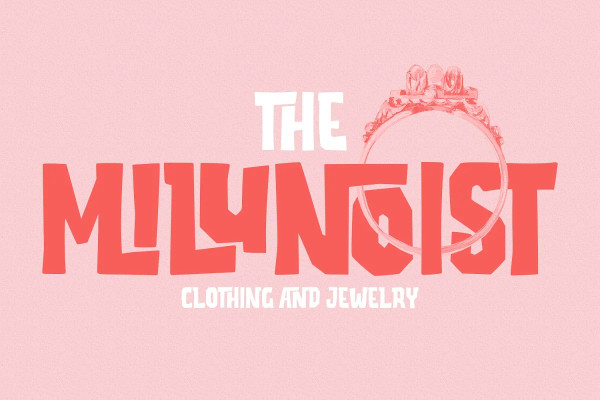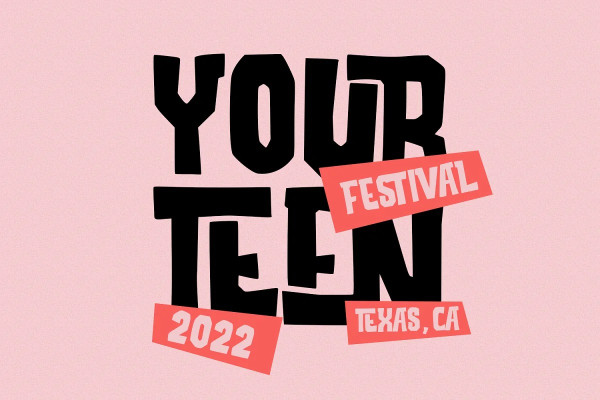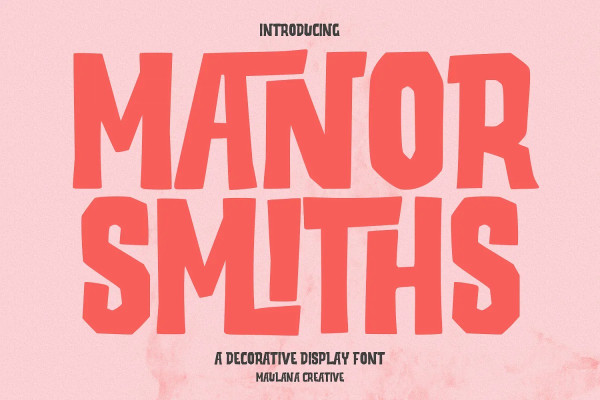
Manor Smiths Font
Manor Smiths Font is a decorative display font. With bold sharp edges stroke, fun character with a bit of ligatures and alternates. To give you an extra creative work. Manor Smiths font support multilingual more than 100+ language. This font is good for logo design, Social media, Movie Titles, Books Titles, a short text even a long text letter and good for your secondary text font with sans or serif. Make a stunning work with ManorSmiths display font.